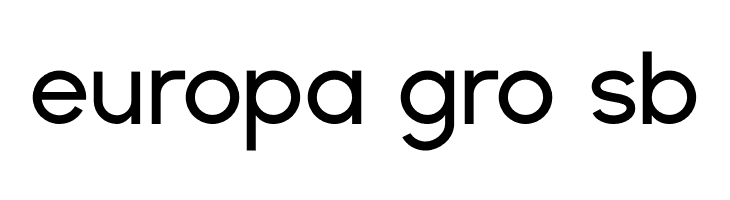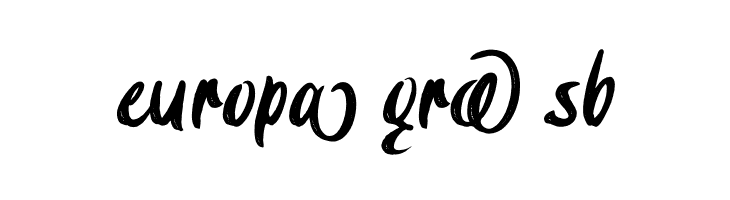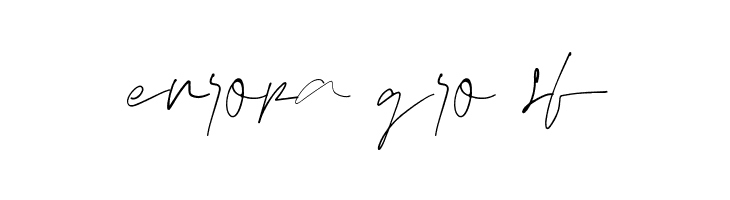
An elegant, flowing script font with a handwritten style.
A classic serif font with high contrast and elegant strokes.
A classic serif font with high contrast and elegant, elongated characters.
A bold, playful handwritten font with rounded, thick strokes.
A modern, geometric sans-serif font with uniform stroke widths.
A bold, expressive script font with a hand-painted brush style.
A modern cursive font with elegant, flowing strokes.
A bold, expressive handwritten font with dynamic strokes and a modern, edgy style.
A dynamic, expressive handwritten font with fluid, continuous strokes.
A dynamic and fluid handwritten script with elegant, flowing letters.